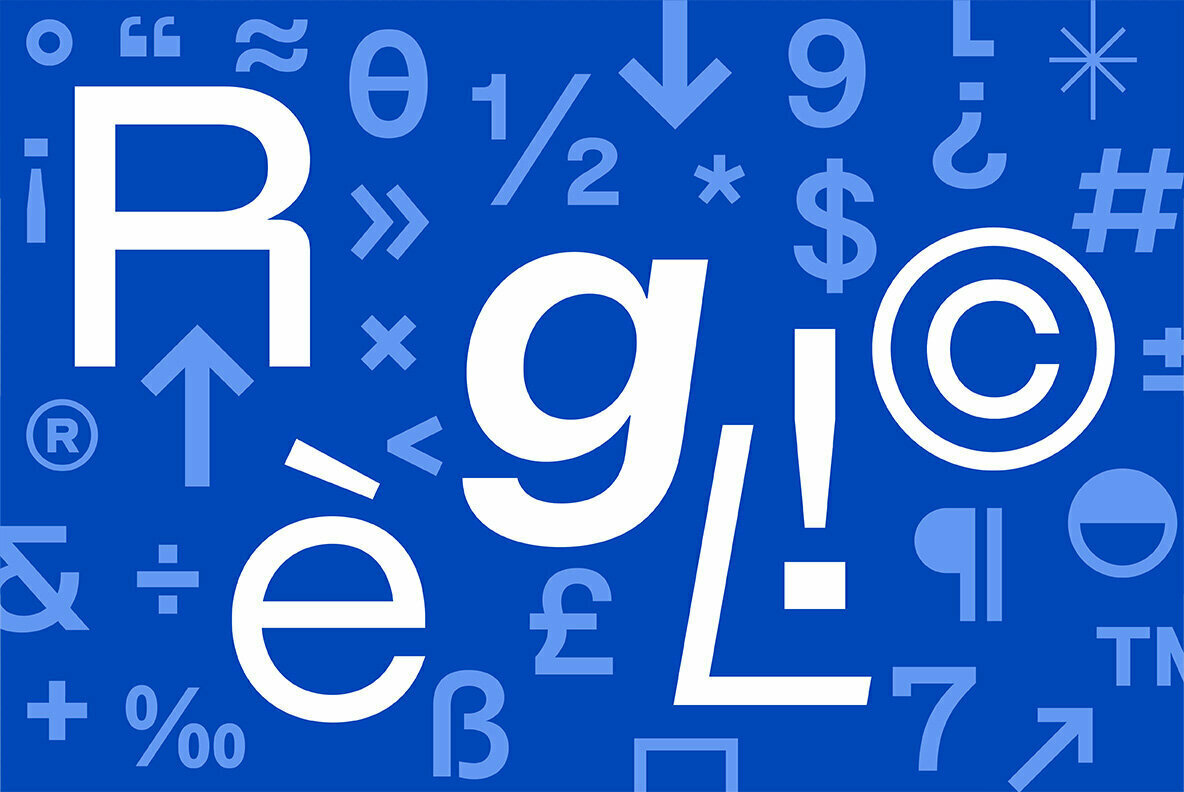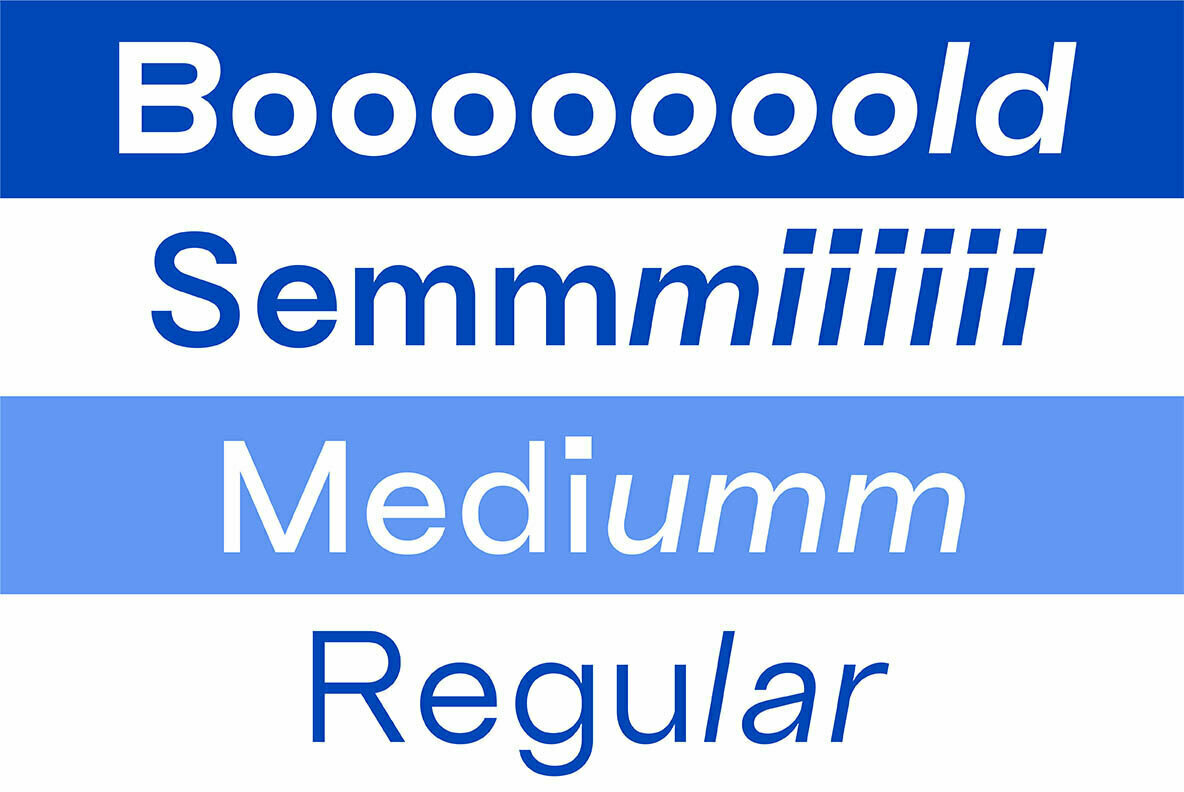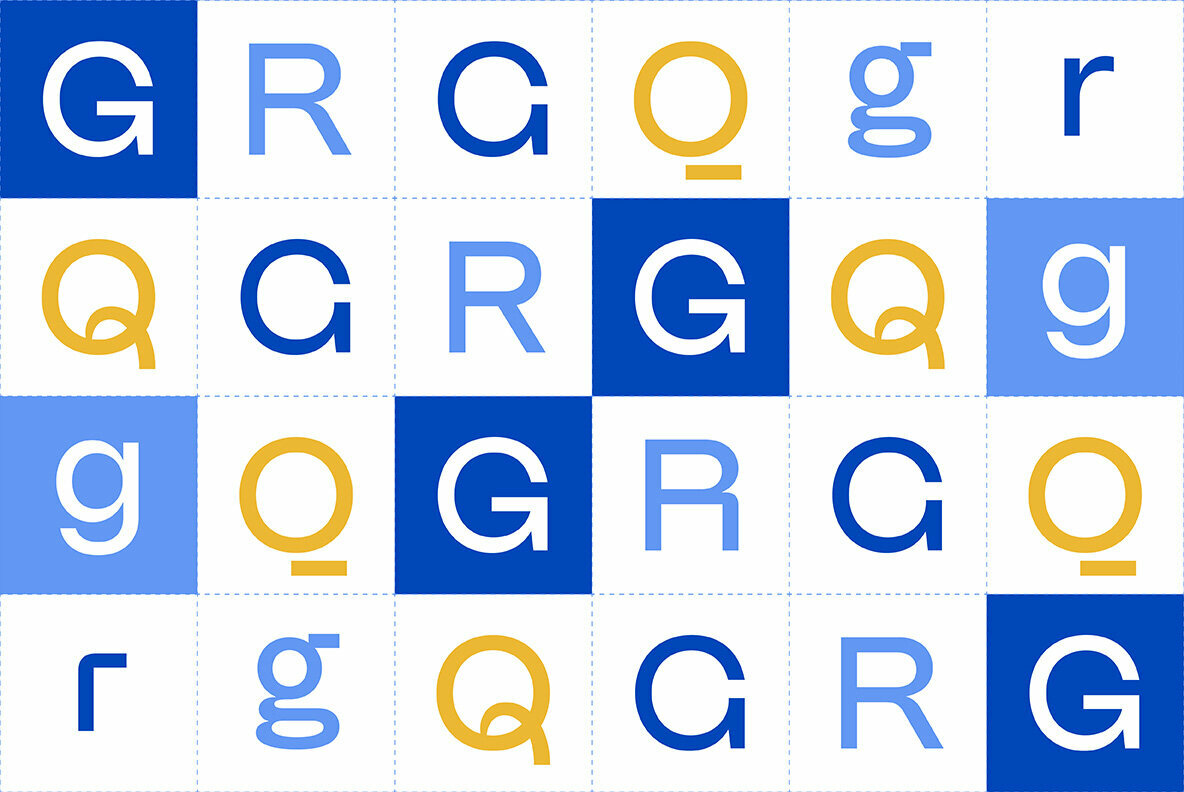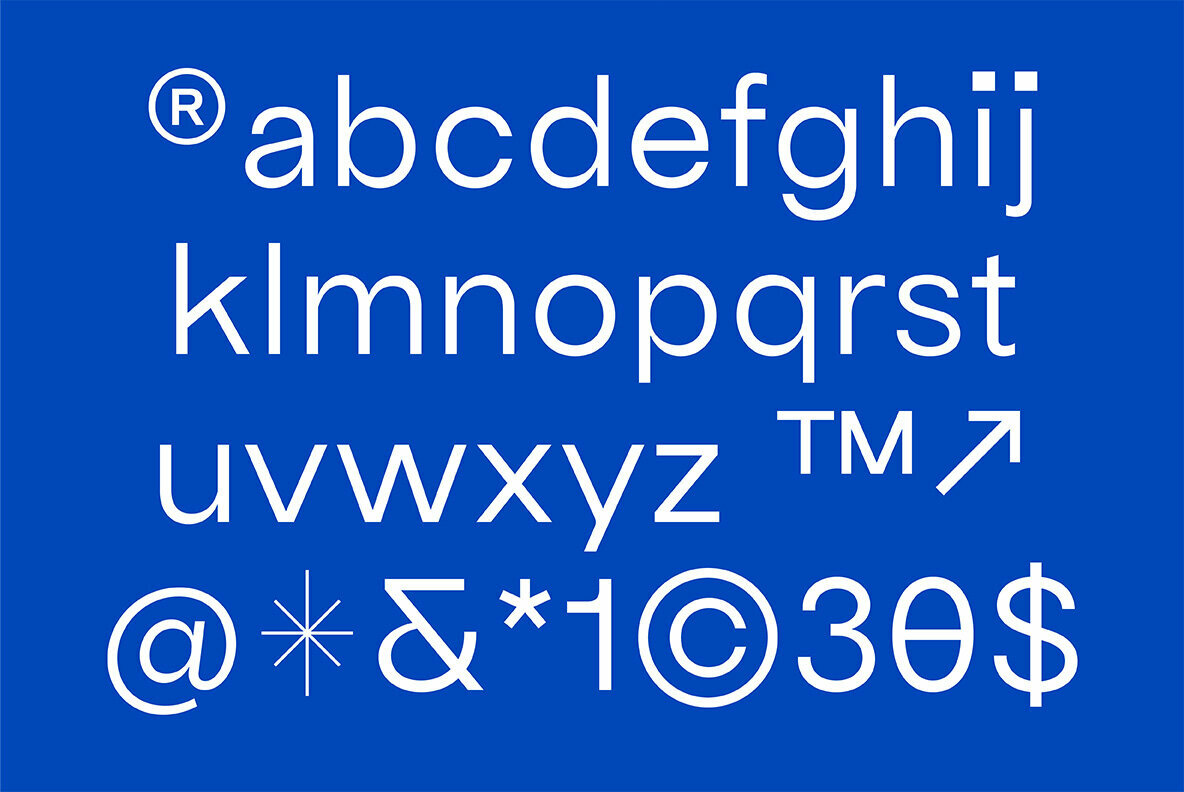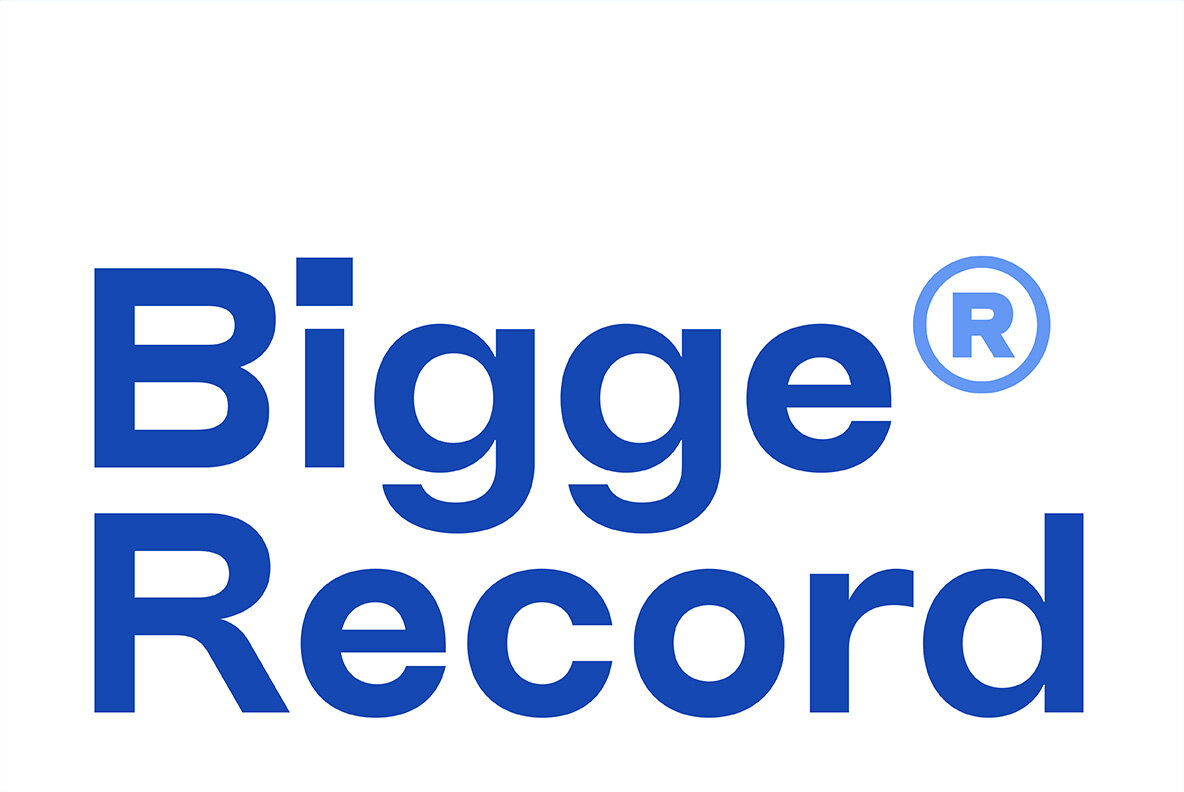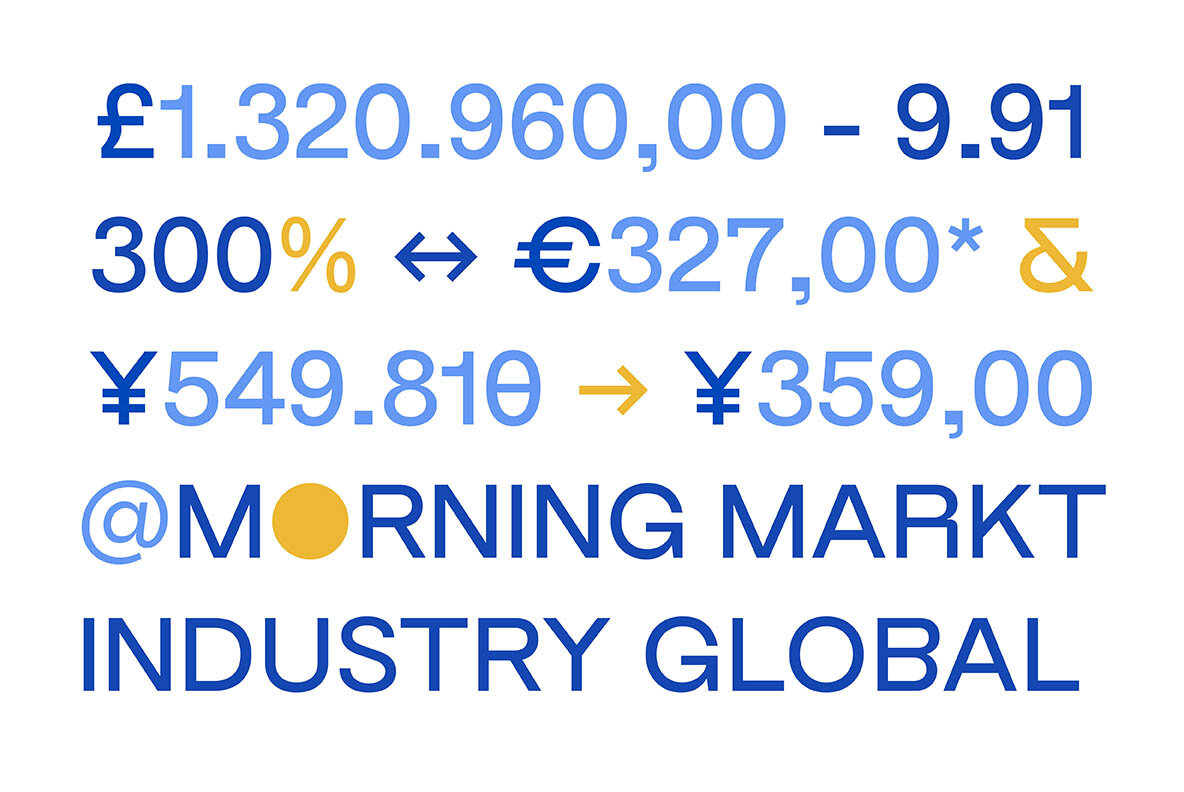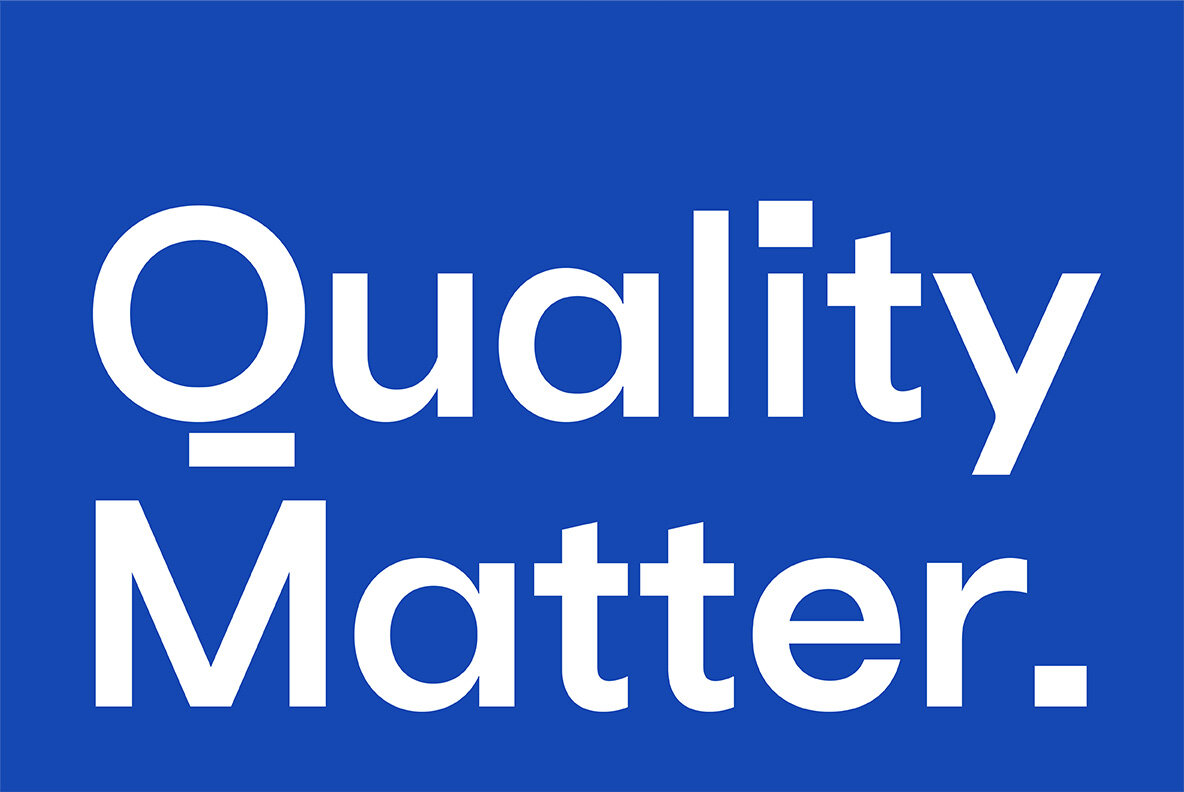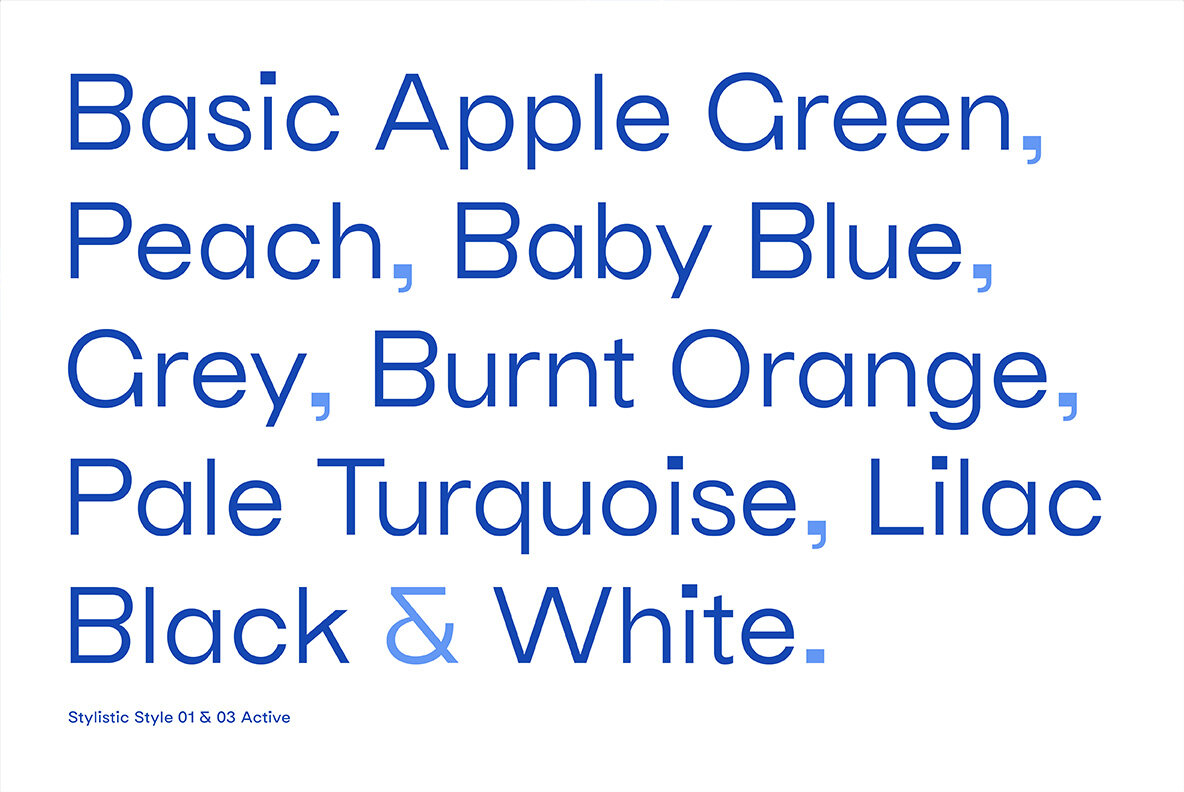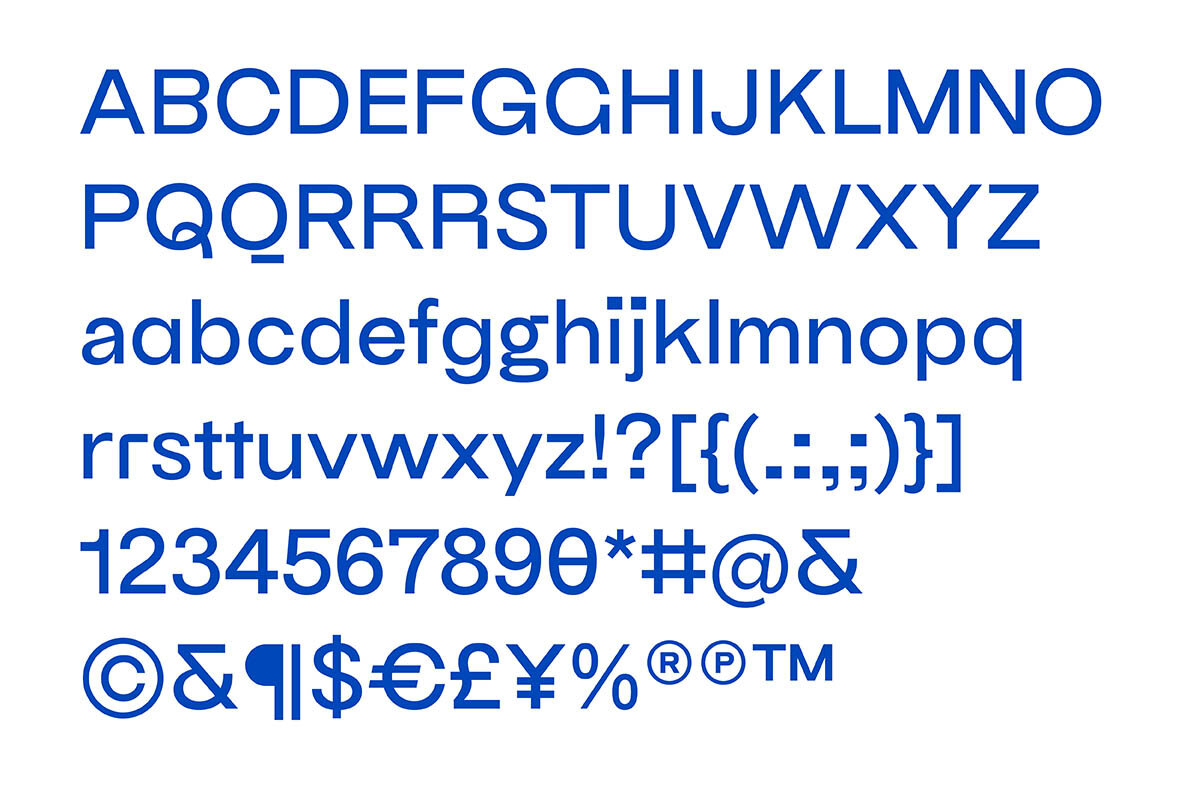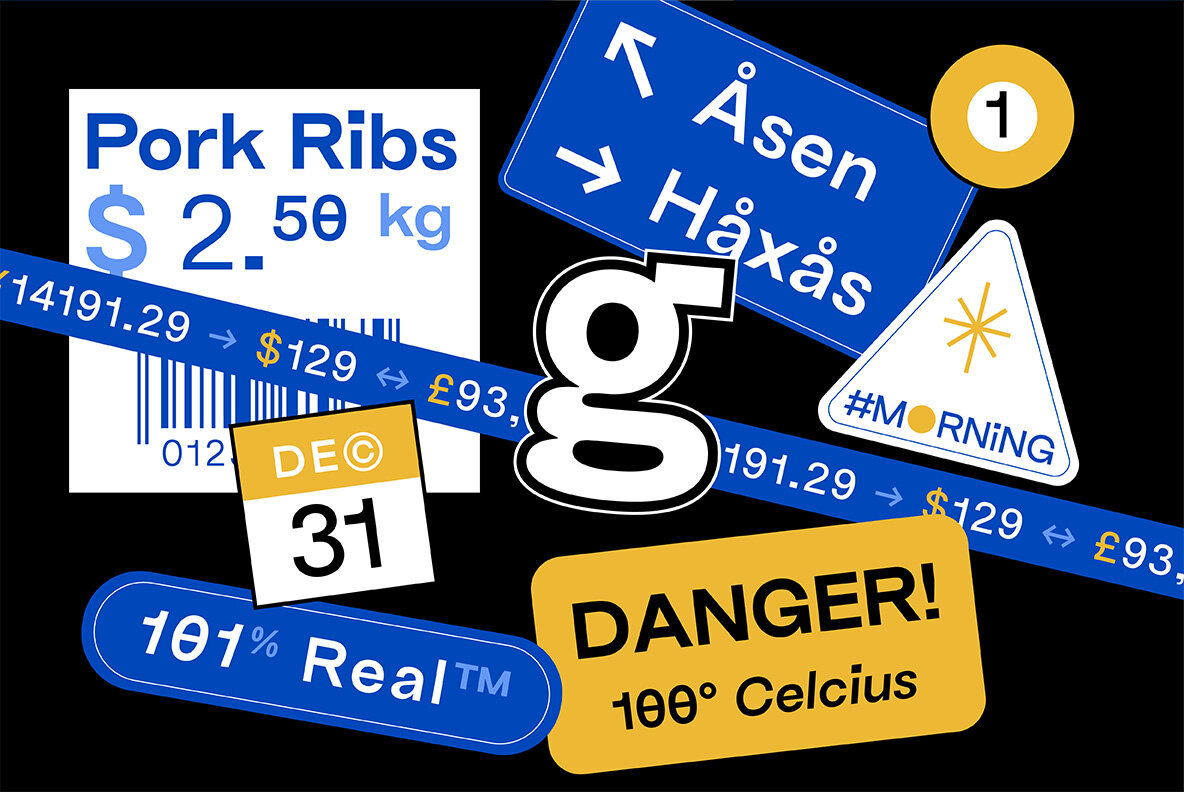
TG Reglic Font
TG Reglic is a new contemporary sans serif, influenced by grotesque and geometric typeface letterforms. It comes with four weights, matched with Italic styles. TG Reglic has several OpenType features such as various ligatures, lining figures (proportional, superior, inferior, denominator, numerator & fraction), stylistic features from 01-04 and covered more than 100 languages Latin based. TG Reglic would be the ideal alternative choice typeface for small or large text sizes with unique characteristics.